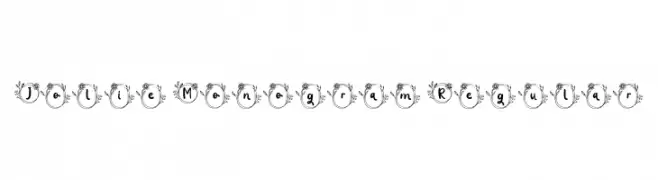
A decorative font with bold letters encased in thorny, circular borders.
A decorative font with uppercase letters in leafy wreaths, perfect for festive projects.
A decorative font with letters encased in wreath-like designs, ideal for festive themes.
A decorative monogram font with uppercase letters encased in festive wreath designs.
A decorative font with floral frames around each character, ideal for elegant designs.
An elegant, decorative font with floral wreaths encasing script-like characters.
A decorative font with floral monogrammed letters and a whimsical, elegant style.